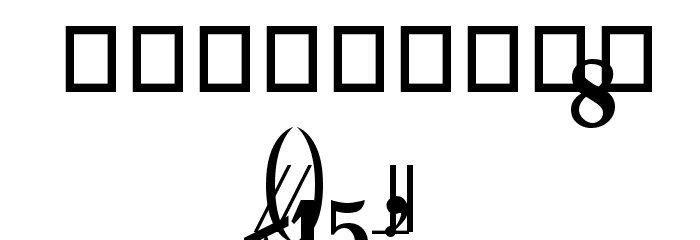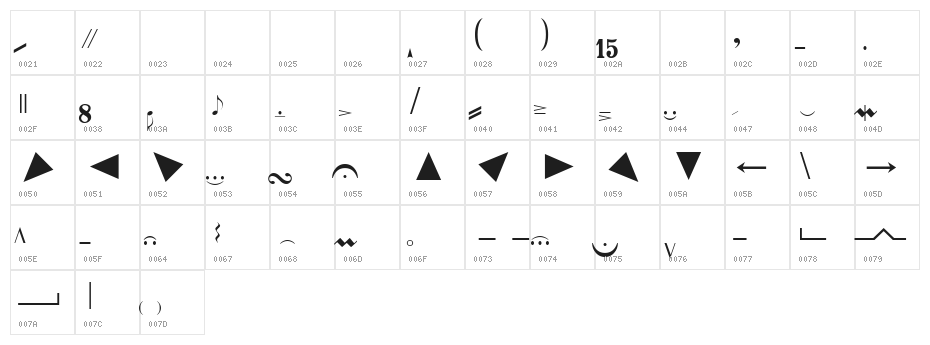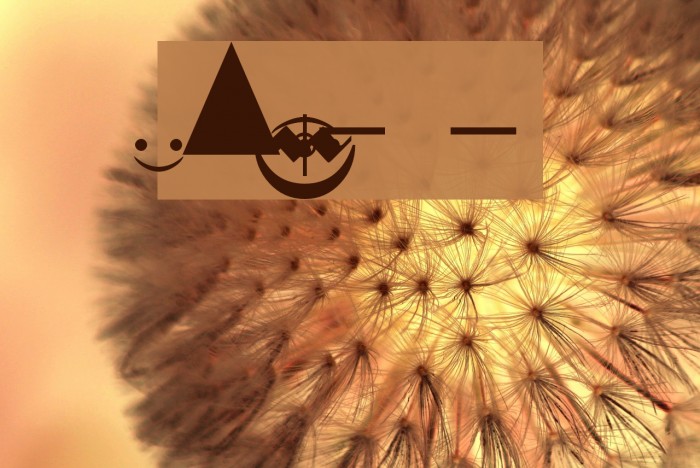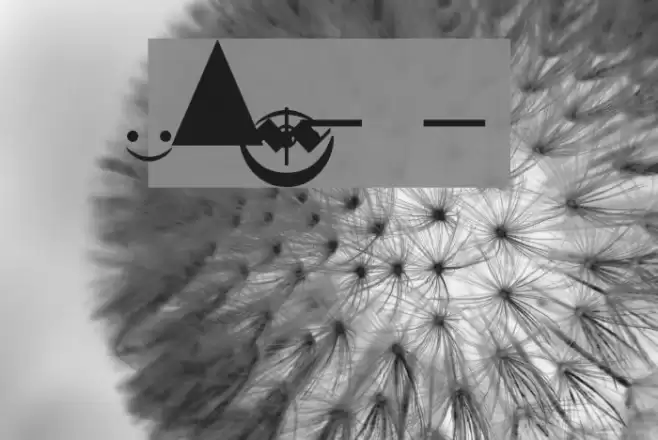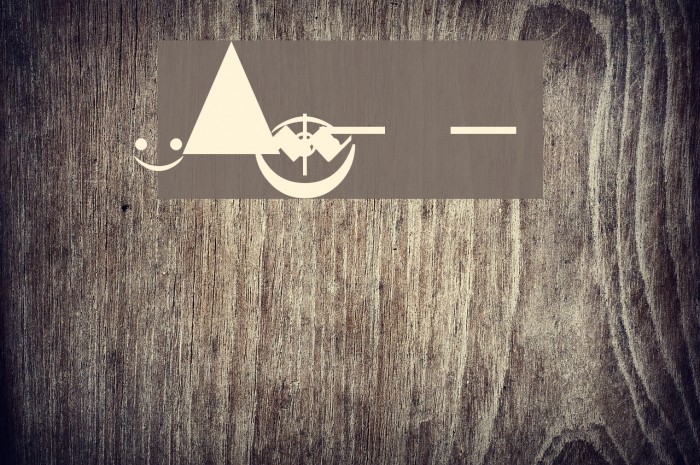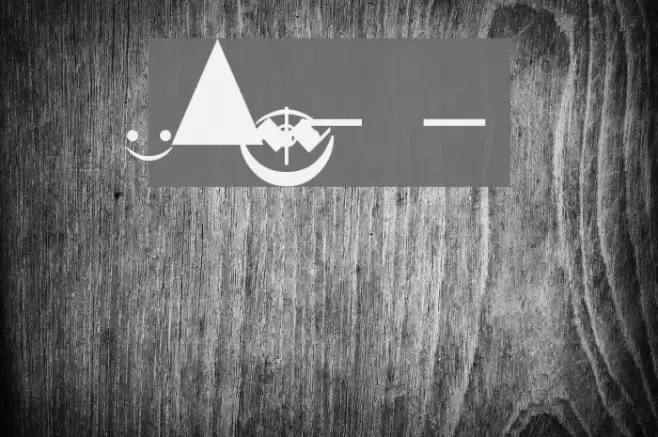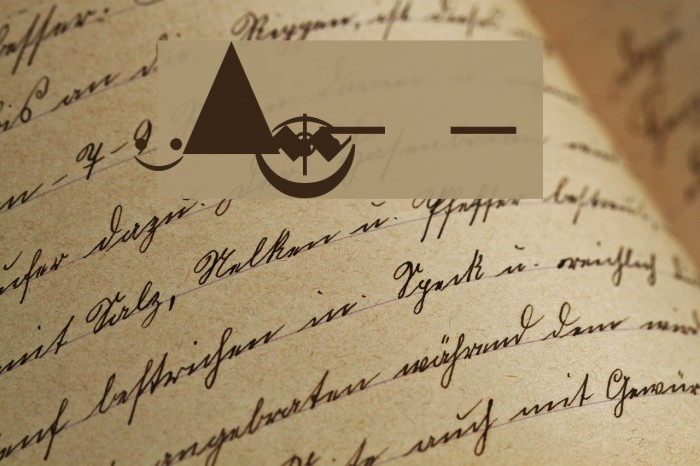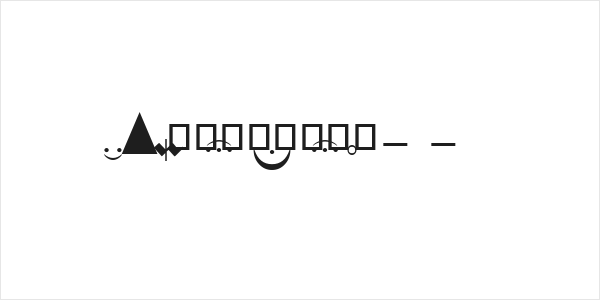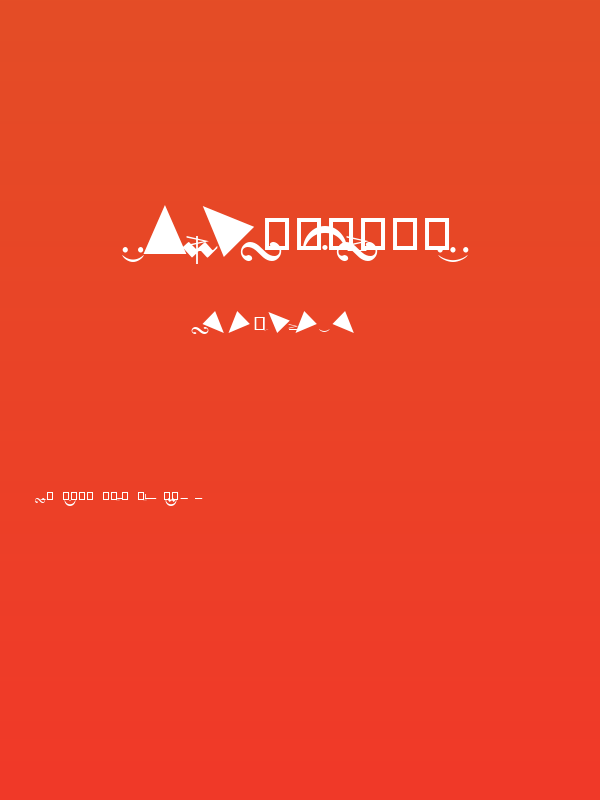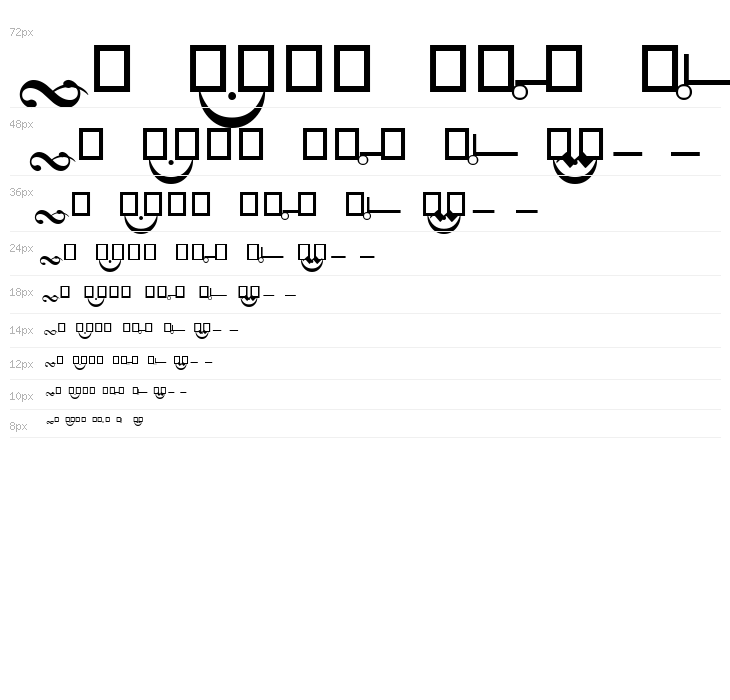
DVMarticulations Font
DVMarticulations Description
This is a decorative font featuring unique symbols, geometric shapes, and abstract forms instead of standard alphanumeric characters. The glyphs include arrows, triangles, lines, and other articulation-like marks, making it highly stylized and non-traditional.
| Overall Style | Decorative, Abstract |
| Use Case | Specialized notation, visual art, experimental design |
| Proposed Projects | Music notation, educational materials, visual art projects, experimental graphic design. |